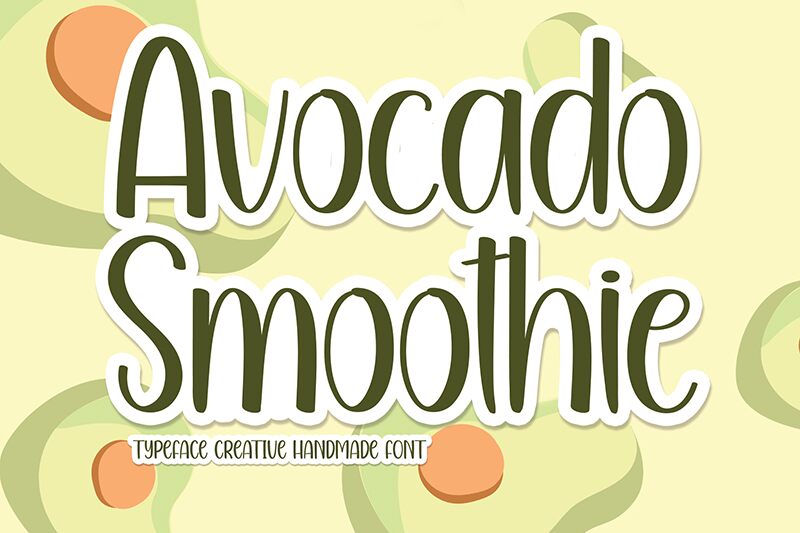
Avocado Smoothie
Avocado Smoothie font designed by Andi Moz is a calligraphy condensed typeface with smooth curves that add movement and flow to its design. The font has both modern and classic elements which makes it easy to apply in different sides with different usage purposes even within the same project.
As a free calligraphy font, this one can fit branding designs and logotypes for lifestyle products, fashion magazines, trendy cafes and restaurants, business cards, personal invitations, and packaging designs. Other interesting ideas include book covers, games for social platforms, photography or beauty blogs name headers.